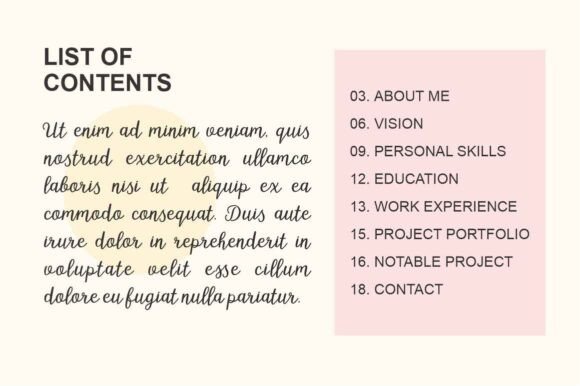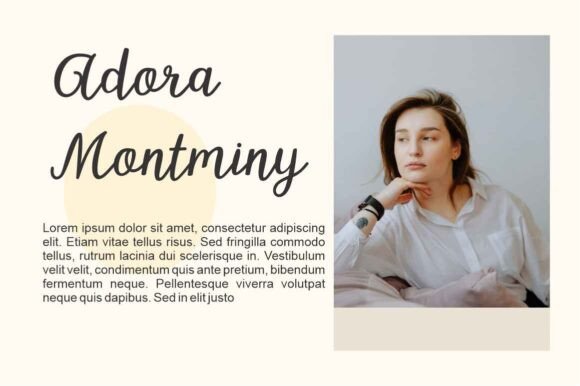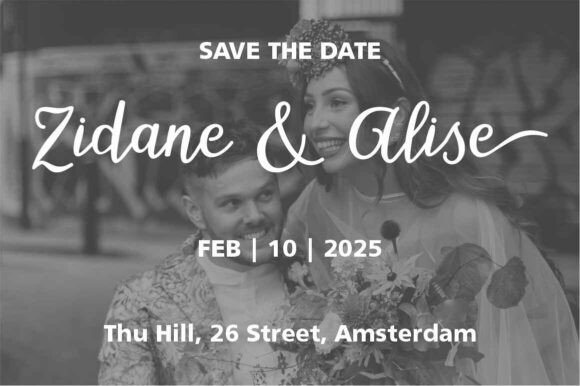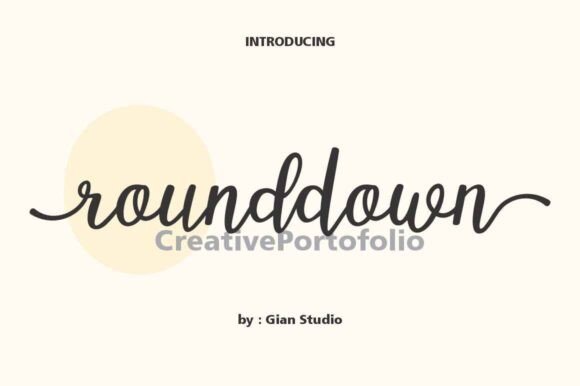
Introduction to Rounddown Font
Rounddown is a stylish and incredibly elegant script font.
Why Choose Rounddown Font?
Rounddown Font offers exceptional quality and versatility, making it a valuable addition to your design toolkit. Whether you’re creating for personal projects or commercial use, Rounddown Font delivers professional results.